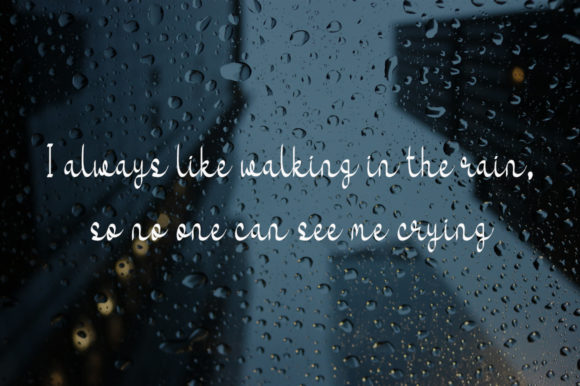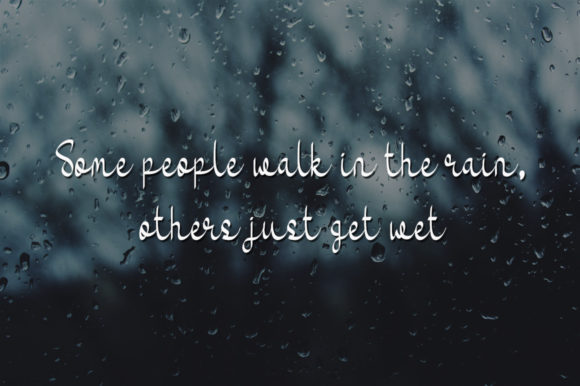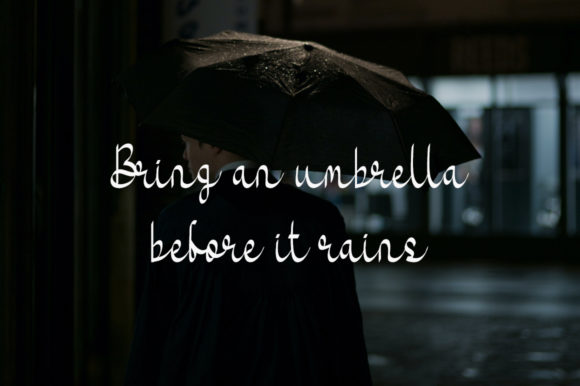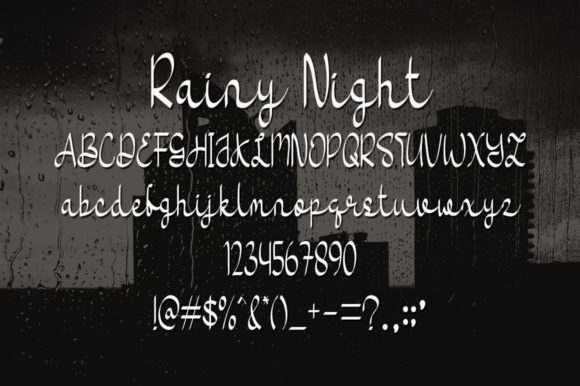
About Rainy Night Font
Introducing “Rainy Night” – an exquisite script font that embodies an elegant style. With its captivating design, this font adds a touch of glamour to various design projects. Whether it’s wedding invitations, thank you cards, quotes, greeting cards, logos, or business cards, “Rainy Night” enhances every creation with its beautiful handwritten aesthetic.
The fluid and graceful curves of “Rainy Night” lend a sense of sophistication and charm to any text. Each letter is meticulously crafted, creating a seamless flow that captures attention and leaves a lasting impression. This font’s versatility allows it to adapt effortlessly to both formal and informal contexts, making it a versatile choice for a wide range of design applications.
When used on wedding invitations, “Rainy Night” evokes a sense of romance and intimacy, setting the perfect tone for a memorable occasion. Its delicate strokes add an element of refinement, making it an ideal choice for elegant stationery.
Expressing gratitude becomes even more special when accompanied by the beauty of “Rainy Night.” Thank you cards adorned with this font exude heartfelt sincerity and appreciation, leaving a lasting impact on the recipient.
Quotes come to life with “Rainy Night.” Its expressive nature adds depth and emotion, transforming simple words into captivating messages that resonate with readers. Whether for social media posts or inspirational prints, this font adds a touch of elegance to every quote.
Greeting cards become extraordinary works of art when graced with the allure of “Rainy Night.” Its unique style conveys warmth and thoughtfulness, making it perfect for conveying heartfelt messages on special occasions.
Logos crafted with “Rainy Night” exude a sense of sophistication and creativity. The script font brings a personalized touch to brand identities, leaving a memorable impression on potential customers.
Business cards take on a new level of professionalism with the addition of “Rainy Night.” Its refined appearance adds a touch of class to any design, making it ideal for businesses looking to make a lasting impact.
In conclusion, “Rainy Night” is a truly remarkable script font that elevates any design project with its elegance and grace. Its versatility and captivating style make it the perfect choice for wedding invitations, thank you cards, quotes, greeting cards, logos, business cards, and any other creative endeavor that craves a handwritten touch. Let “Rainy Night” bring your designs to life with its exquisite charm.